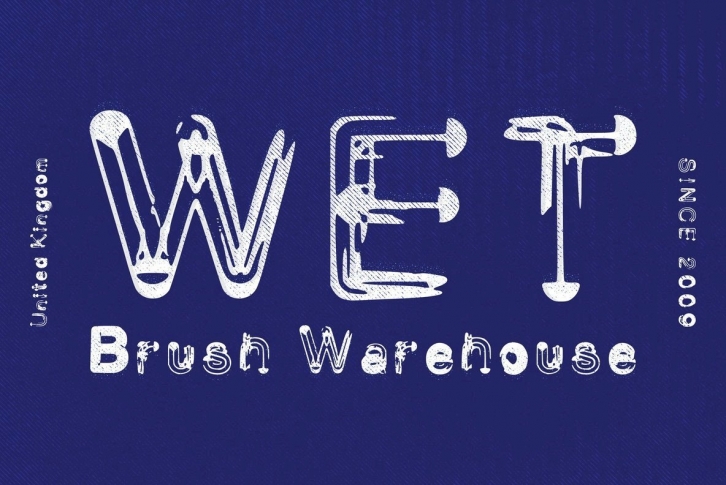
If your looking for a messy painted font with all the features of a well used brush then Wet Brush has been designed with you in mind. Based on all those sloppy hand written signs you have seen on the informing us all of ‘wet paint’. Now in a font, at last! Brushed display and casual font for all your fast, sloppy designs. A great fat face brush type set that comes in upper, lower, numbers including symbols and punctuation. Get your painted messages out there today
This font was created by Benjamin A Melville and features a full upper and lower case alphabet including 0-9 and some punctuation, please see glyphs list for all characters you will be able to work with.